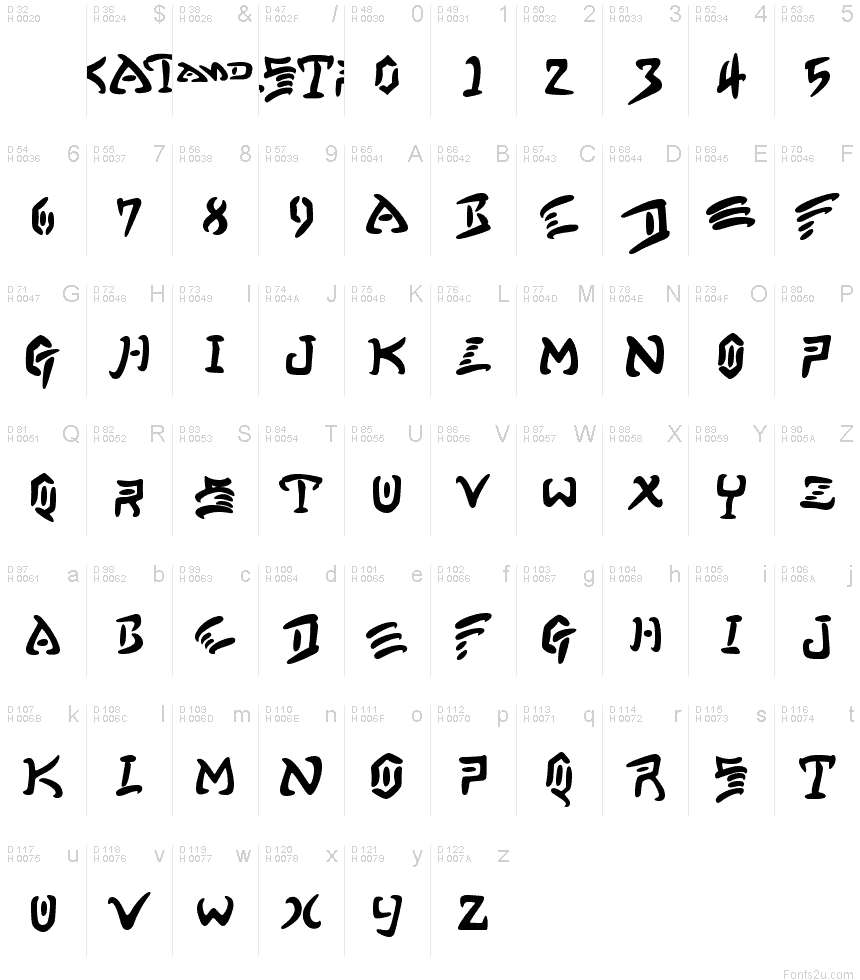
Skateandfont by Honey&Death is a free brush display font with sweeping strokes and unruly street-art shapes. The letters mix blunt curves with sudden tapered cuts, as if painted quickly with a flexible brush. Repeated horizontal marks give the forms a lively, hand-drawn texture.
Skate culture and graffiti imagery are the clearest match for this lettering. It can shape skateboard graphics, music posters, and apparel branding with an improvised, marker-made edge. Brush forms can become artwork for flyers or youth packaging.